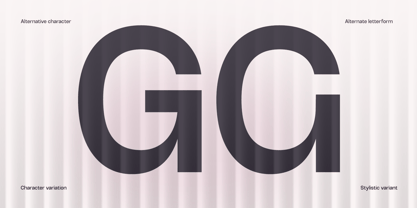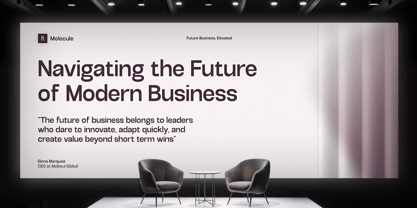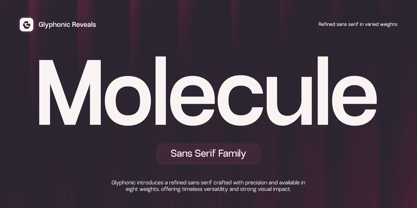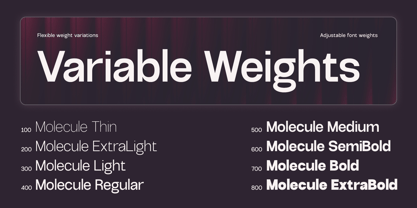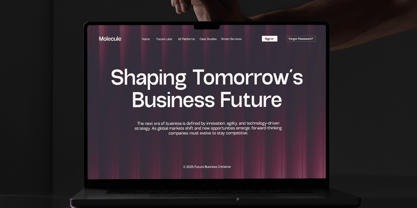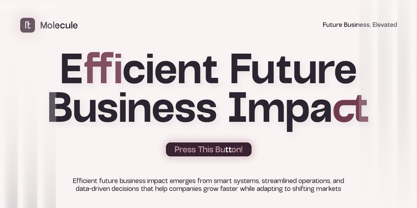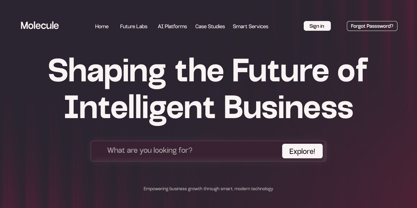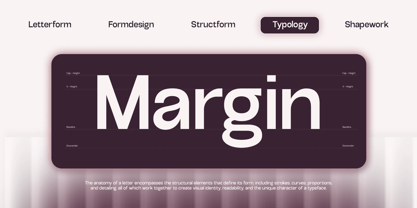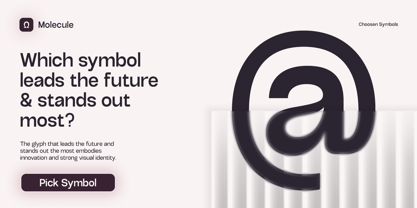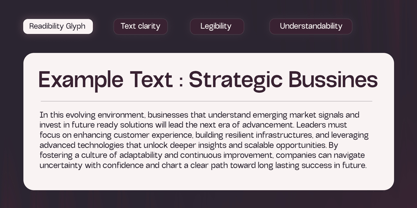
GC Molecule
Die Schriftfamilie GC Molecule wurde von Muhammad Hafiizh Solana entworfen und von Onyx Studio veröffentlicht. GC Molecule enthält 8 Stile und Familienpaketoptionen. Mehr über diese Familie
GC Molecule – Refined Sans Serif is a modern, clean, and precisely crafted typeface designed for clarity, refinement, and versatile usability. With smooth geometry and balanced stroke details, it offers a polished and contemporary voice that performs beautifully across both print and digital environments. Created to embody refined simplicity without sacrificing character, GC Molecule is ideal for branding, editorial layouts, technology-driven projects, minimalist design systems, and sleek visual identities. Its harmonious proportions and careful detailing make this typeface adaptable yet uniquely distinctive. Whether you're building sharp interface designs, bold headlines, or clean and minimalistic posters, GC Molecule brings sophistication, modernity, and effortless elegance to your typography. Features: - Uppercase & Lowercase - Numbers & Punctuation - Refined Geometric Construction - Multilingual Support (170+ Languages) Enhance your design with the polished clarity and refined modern style of GC Molecule – Refined Sans Serif.
GC Molecule